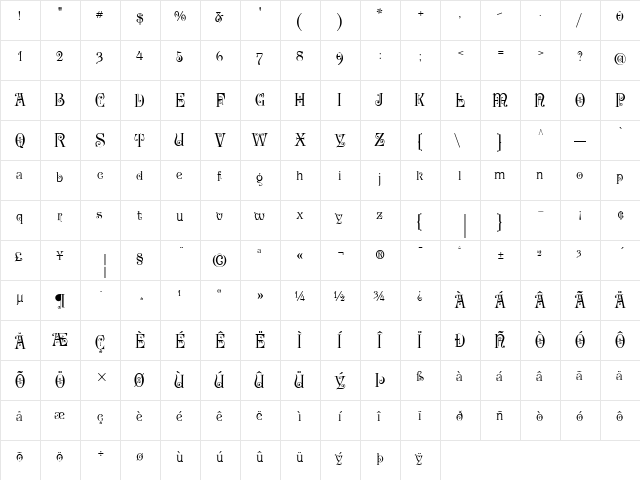
P22 Kilkenny Eureka Eureka
| Designer | Paul Hunt |
Design Context for P22 Kilkenny Eureka Typeface
P22 Kilkenny Eureka is a composed and adaptable typeface that performs quietly and consistently across a wide range of design contexts.